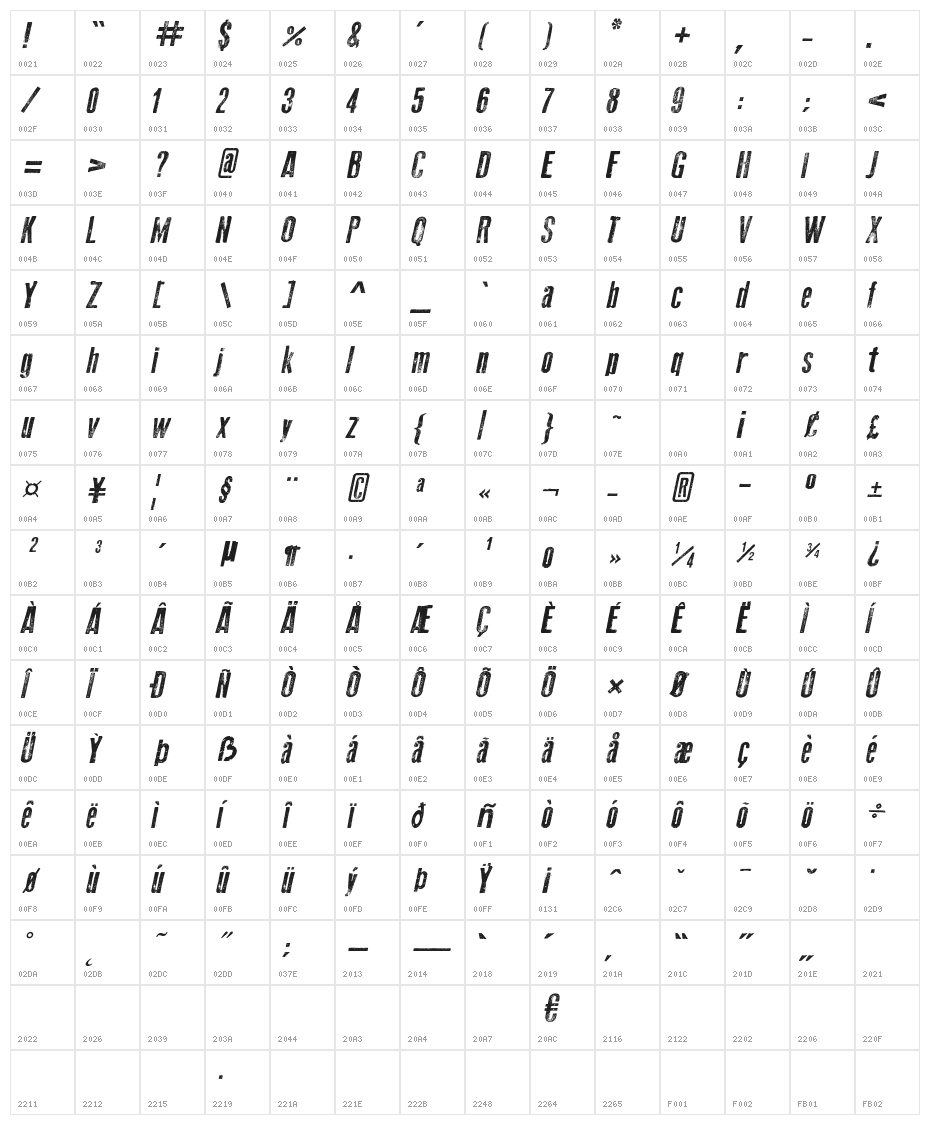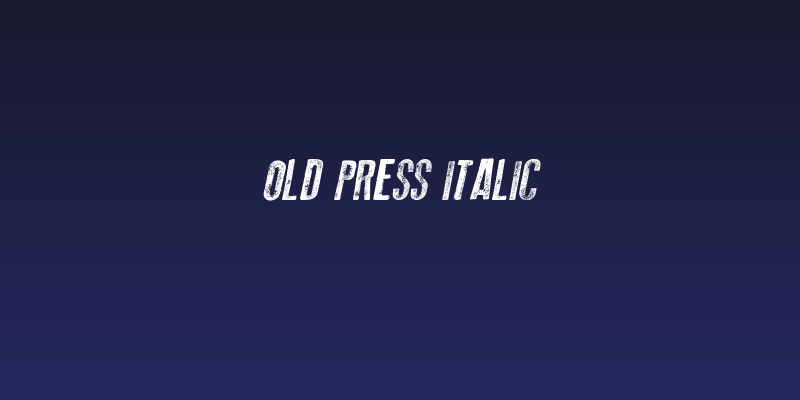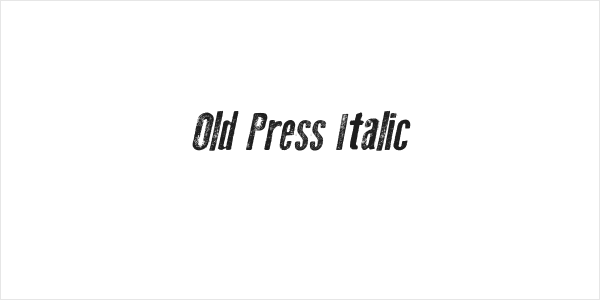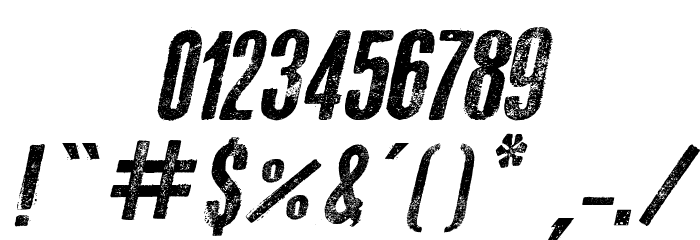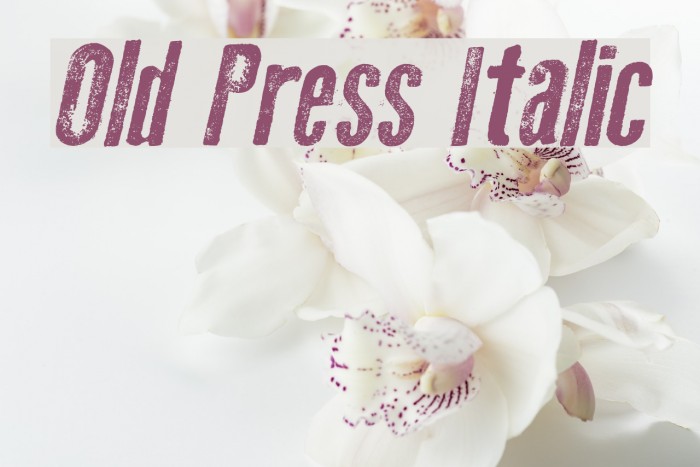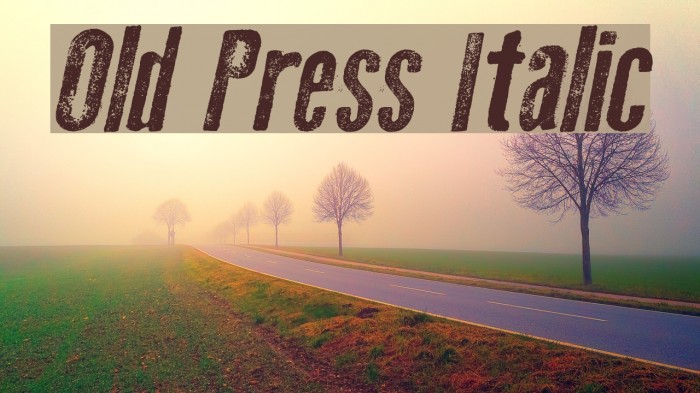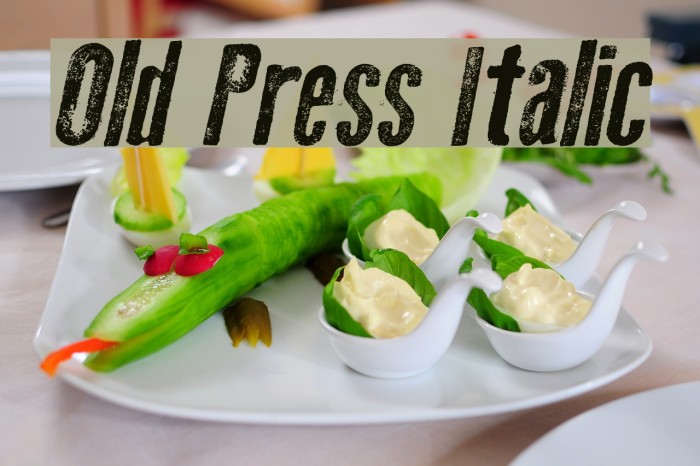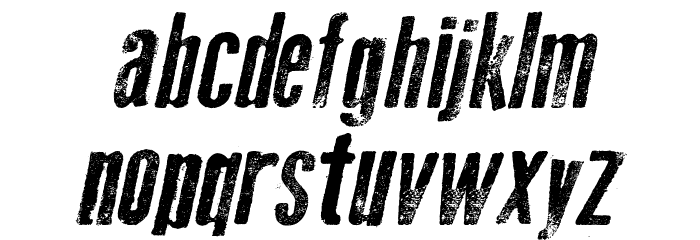
Old Press Italic Font
Old Press Italic Description
This font features a distressed, textured appearance reminiscent of vintage printing techniques. The characters are italicized, giving a sense of motion and dynamism. The uppercase and lowercase letters maintain a consistent style, with slightly condensed proportions. The numbers and special characters follow the same aesthetic, providing a cohesive look across all glyphs. The rough, worn edges add a rustic charm, making it ideal for projects that require a retro or industrial feel. The font's unique style is both eye-catching and versatile, suitable for a variety of creative applications.
| Proposed Projects | Ideal for vintage posters, retro branding, industrial-themed designs, and creative packaging. |